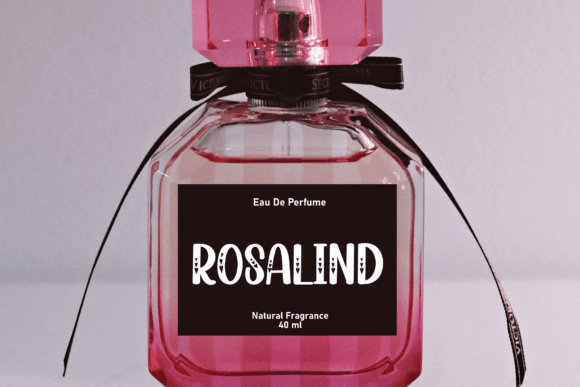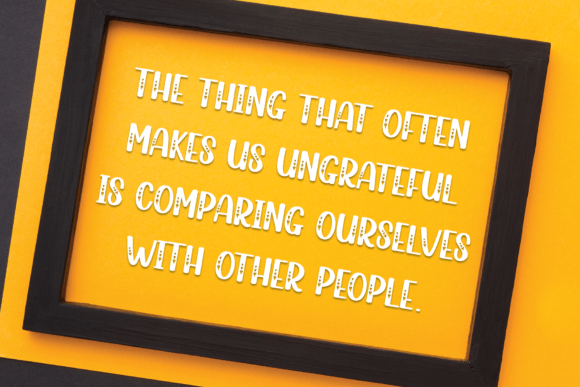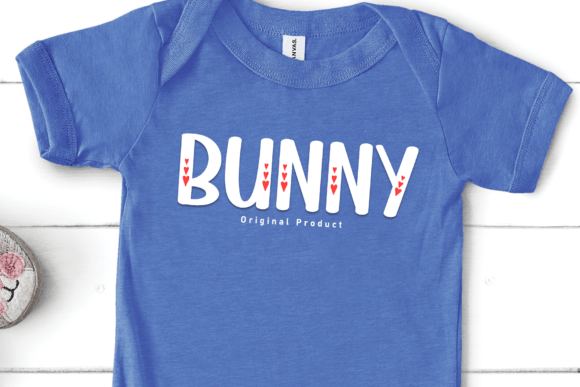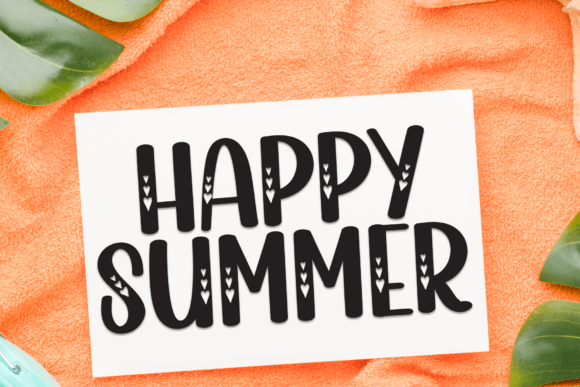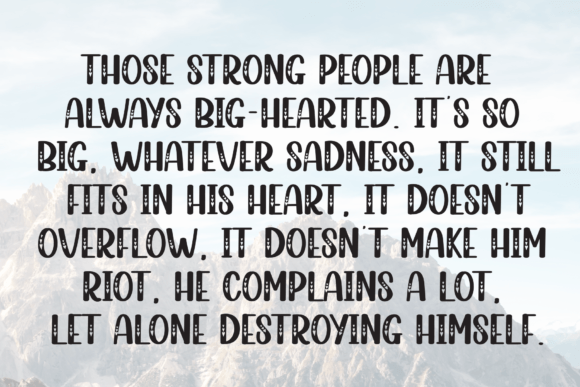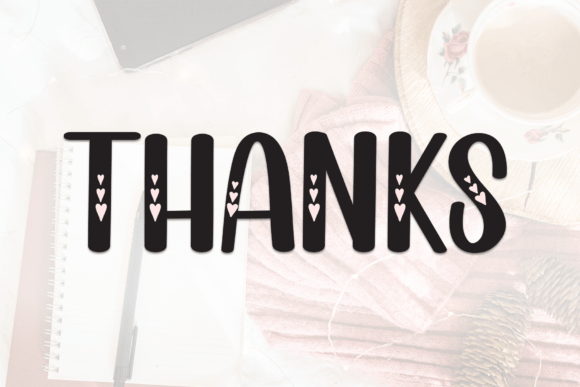
Introduction to Daily Weekend Font
Remember the excitement of planning a surprise birthday party for a loved one? The thrill of crafting a handmade invitation, choosing the perfect colors, and adding a touch of whimsy to make it truly special. As designers, we’re often tasked with bringing joy and personality to our projects, and that’s where the Daily Weekend Font comes in – a charming and delightful handwritten display font that’s sure to add a dash of fun to any design project.
With its warmth and friendliness, this adorable font is perfect for creating whimsical wedding invitations, personalized cards, or any design project that calls for a touch of sweetness. Whether you’re a seasoned designer or a creative enthusiast, the Daily Weekend Font is a valuable resource that can elevate your custom designs and make them truly unforgettable.
Key Features of Daily Weekend Font
- Comes in a single weight, making it perfect for titles, headings, and short paragraphs in creative projects.
- Unique characteristic: Designed to evoke a carefree, weekend vibe, making it perfect for projects that require a relaxed and casual tone.
Honest Review: Daily Weekend Font
I recently stumbled upon the Daily Weekend Font and I have to say, it’s been a great addition to my design resources. As a designer, I’m always on the lookout for high-quality fonts to enhance my creative projects.
- Some users may find the font style a bit too modern or trendy
Overall, I’m really impressed with the Daily Weekend Font. It’s a great addition to my design resources and I’ve already used it in a few projects. If you’re looking for a high-quality, free font to enhance your creative projects, I’d definitely recommend checking it out. ✨”
For the best results, use Daily Weekend Font in conjunction with a high-quality design resource. Experiment with different font sizes and styles to add visual interest to your project. This font is ideal for creative projects that require a modern and sleek look.
Comparison: Bebas Neue has a more geometric and modern feel compared to Daily Weekend Font, which has a more rounded and casual look. Bebas Neue is also more versatile and can be used in a wide range of creative projects, from logos to brochures.